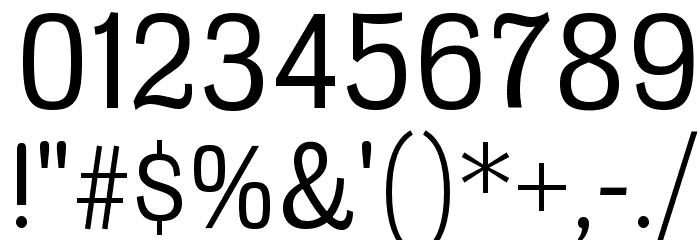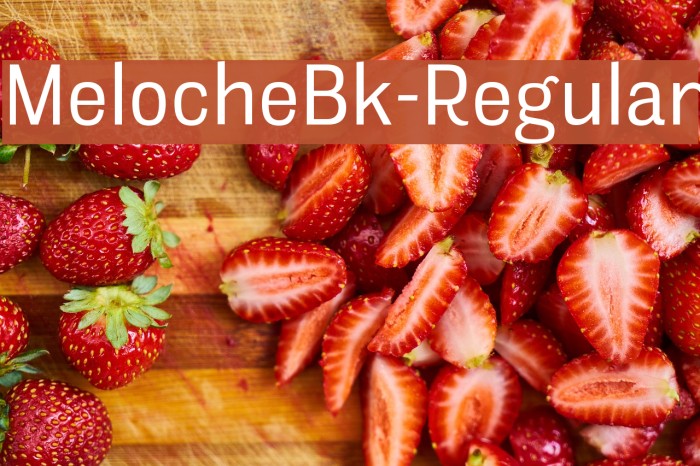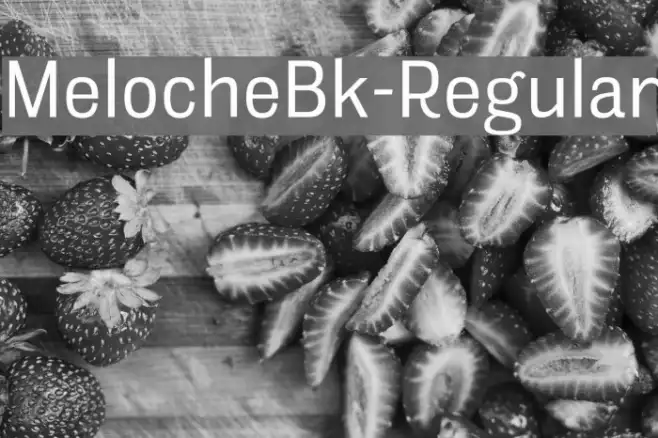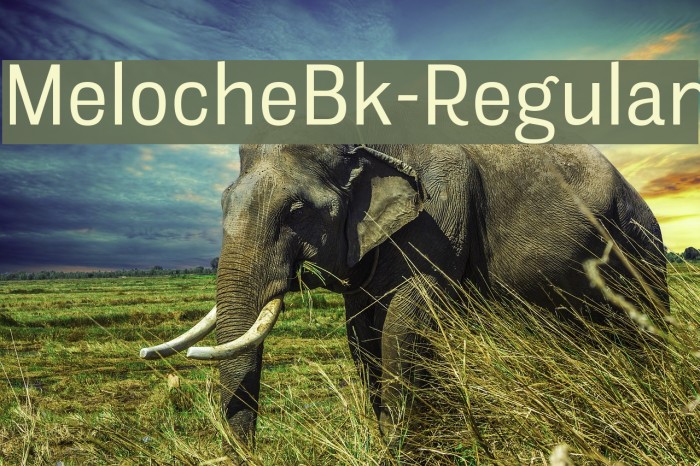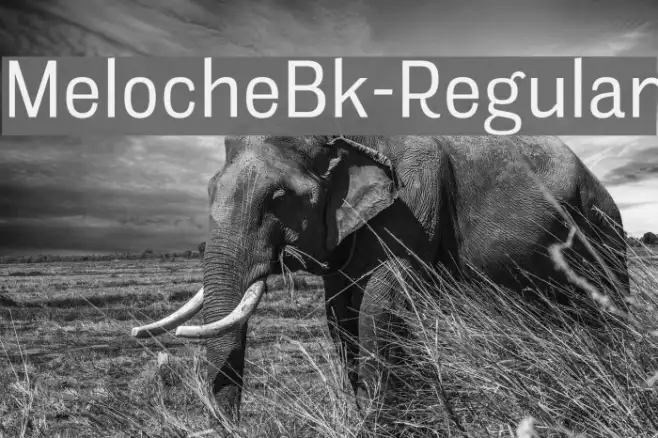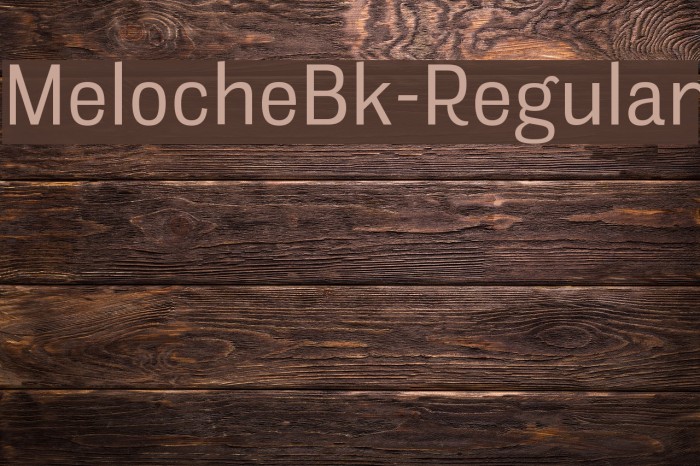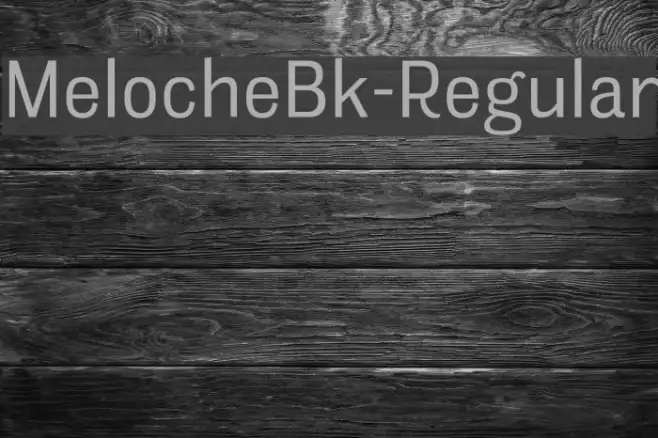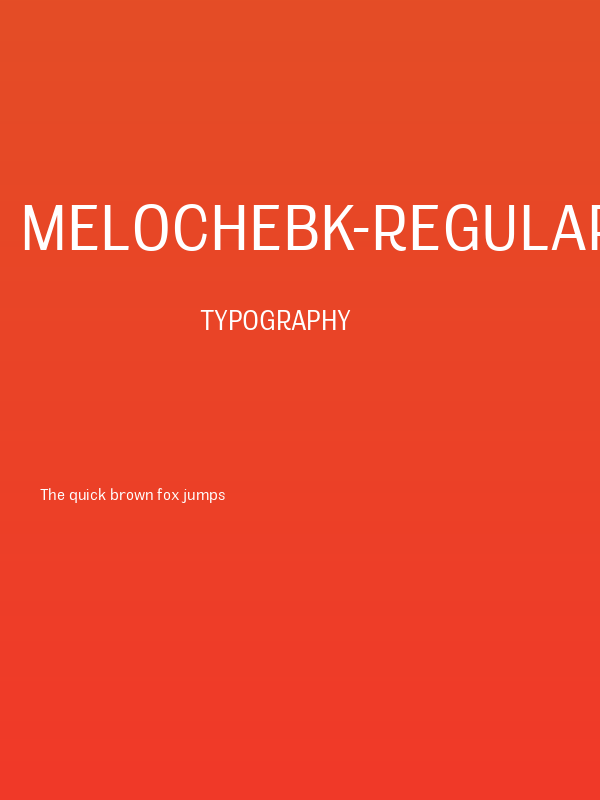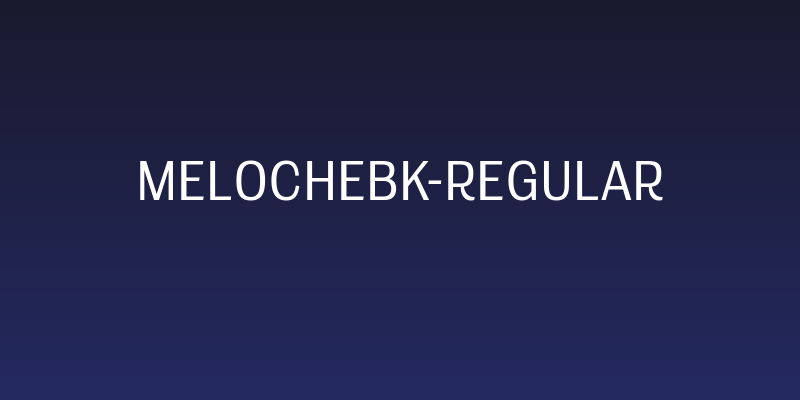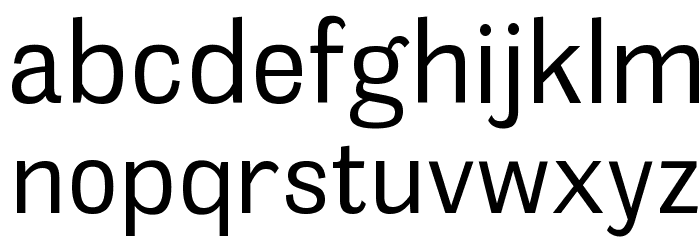
MelocheBk-Regular Font
MelocheBk-Regular Description
This font features a clean and modern sans-serif design with a focus on readability and simplicity. The characters are well-proportioned with a consistent stroke width, providing a balanced and harmonious appearance. The uppercase and lowercase letters are distinct, with a slight geometric influence that adds to its contemporary feel. The numerals are clear and easy to read, making them suitable for various applications. Special characters are included, maintaining the overall aesthetic of the font. The design is versatile, making it suitable for both digital and print media.